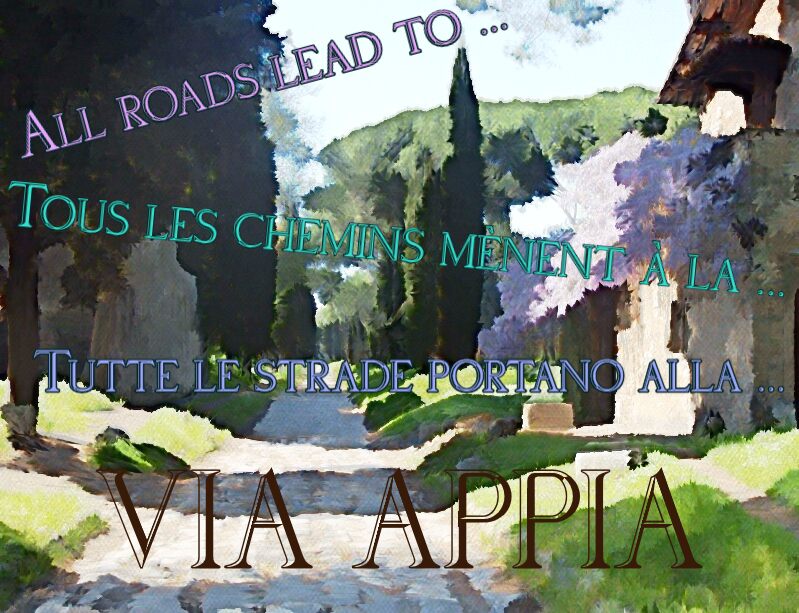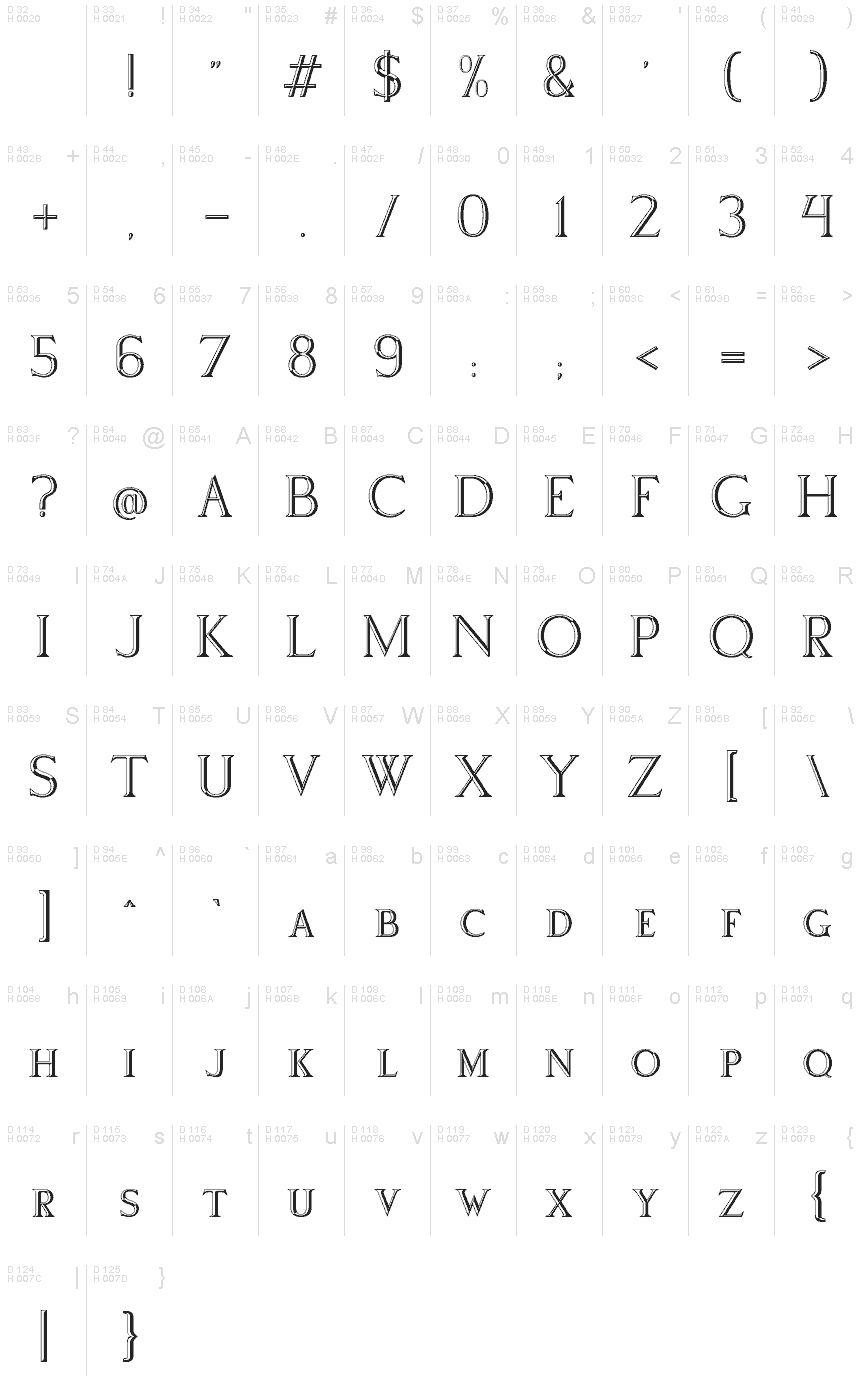
Via Appia Regular
Via Appia's first use is as a title font. The basis is my Pompei font without the flourishes. It's in fact a Roman chiseled alphabet.
Version 2:
Added: Stylistic sets 1 and 2 to convert arabic numerals from 1 to 9999 to roman numerals, some glyphs.
Corrected: mostly lower cases, kerning.
Version 2.004:
Corrected some "optical illusions": A a M m N n 4 8 $ etc.